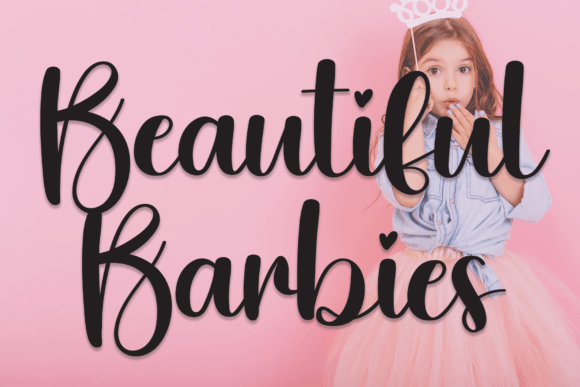
Dive into the world of elegance and sophistication with Beautiful Barbies, a captivating script font that transports you to a realm of timeless beauty. Experience the allure of delicate strokes and graceful curves that intertwine seamlessly, evoking a sense of romance and charm. Unleash your creativity with this exquisitely designed font, meticulously crafted to elevate your projects to new heights.
Designed with a modern twist on classic calligraphy, Beautiful Barbies embodies a timeless aesthetic that complements a wide range of design styles. Its versatility knows no bounds, making it the perfect choice for wedding invitations, branding materials, social media graphics, and any project where a touch of elegance is desired.
Indulge in the charm of Beautiful Barbies and let your imagination soar. Feel the magic as your words come to life, imbued with a sense of sophistication and grace. Elevate your designs, capture hearts, and create unforgettable impressions with this remarkable font.
Embrace the artistry of Beautiful Barbies and embark on a journey of creative expression. Immerse yourself in the world of handwritten elegance and let your projects blossom with timeless beauty.